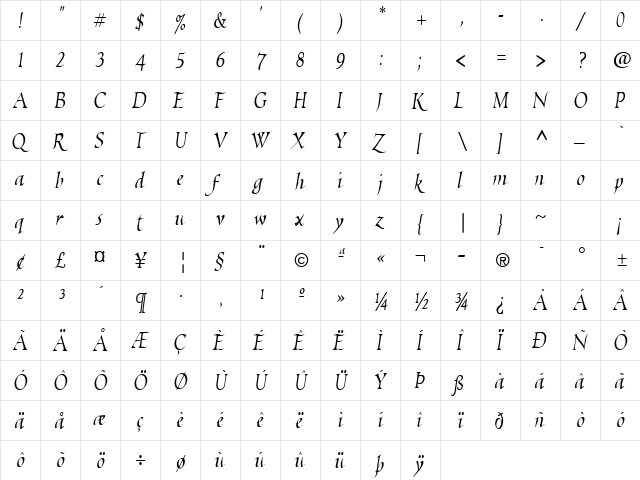
EscribaUT Italic Regular
Design Context for EscribaUT Italic Typeface
EscribaUT Italic takes a measured approach to typography — its balanced proportions and neutral character make it a reliable workhorse for both digital and print work. The slanted form adds forward momentum and visual energy.